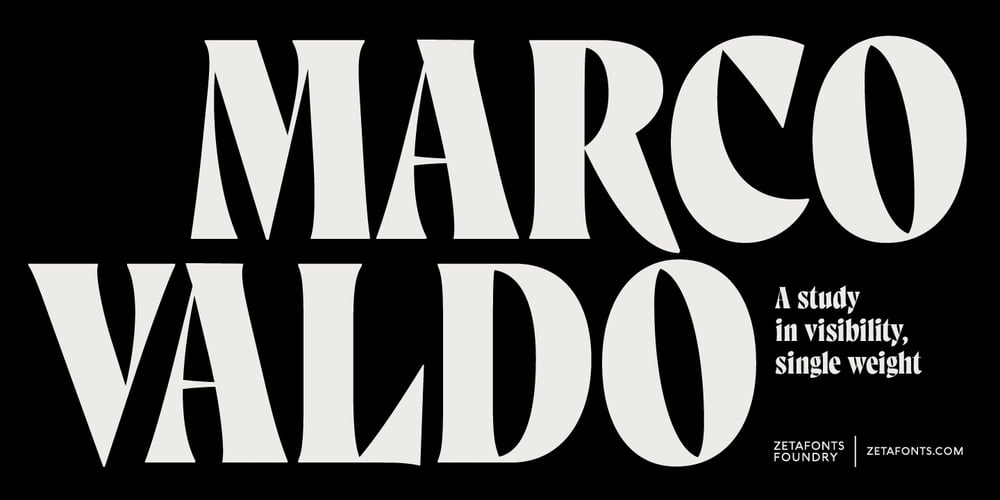
Marcovaldo
Marcovaldo font
Marcovaldo Font Family was designed by Andrea Tartarelli and published by Zetafonts. Marcovaldo contains 1 styles and family package options. Developed by Andrea Tartarelli as an extension to Calvino typefamily, Marcovaldo is a heavy condensed wedge serif, optimized for display design. The high contrast and rich texture of the old style letterforms marry digital aesthetics in a typeface that is at the same time impactful and refined, with its nod to the Elzevir and DeVinne tradition.